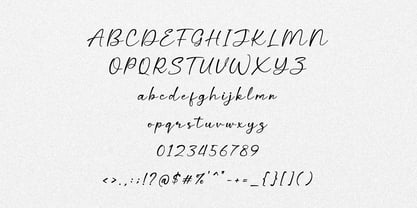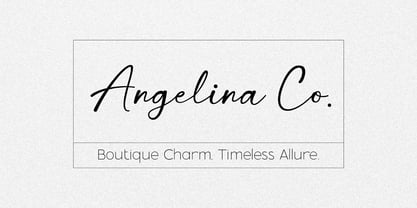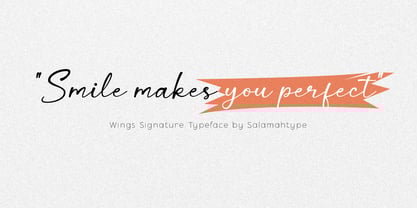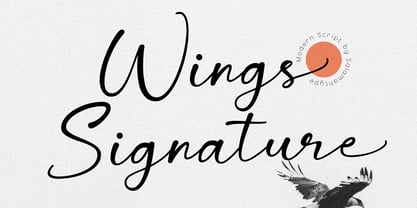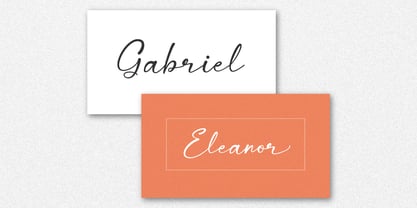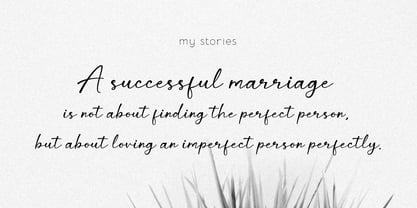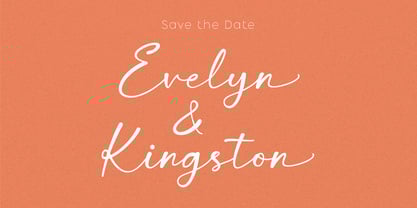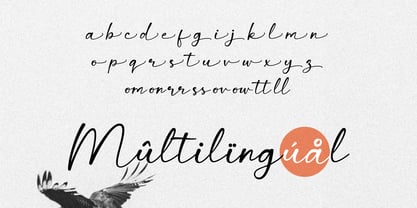
Wings Signature
by Salamahtype
The Wings Signature Font Family was designed by Aswangga Sadike and published by Salamahtype. Wings Signature contains 1 styles.
Wings Signature is a natural handwriting script font with a smooth and elegant flow. Its stylish and authentic strokes make it perfect for logos, wedding invitations, branding, and more. Whether you’re designing a signature-style logo or adding a personal touch to your projects, Wings Signature brings beauty and creativity to every design.
Wings Signature includes:
• Uppercase Lowercase
• Symbol and Punctuation
• Alternates and Ligatures
• Multilingual Support